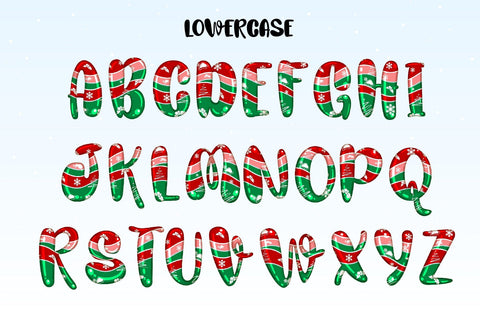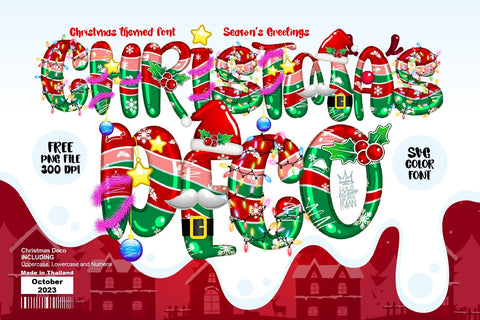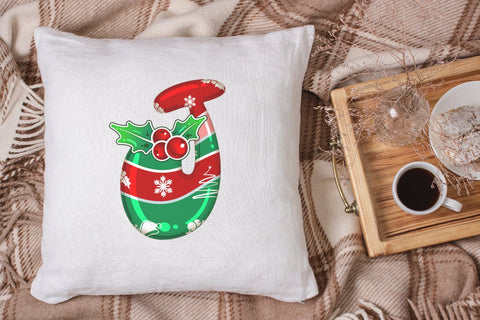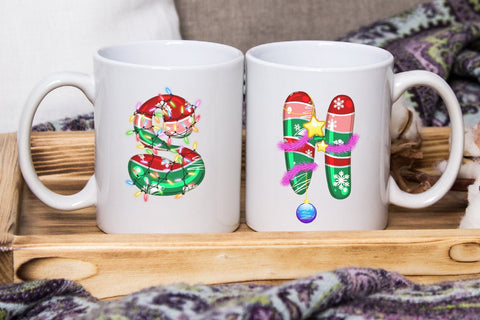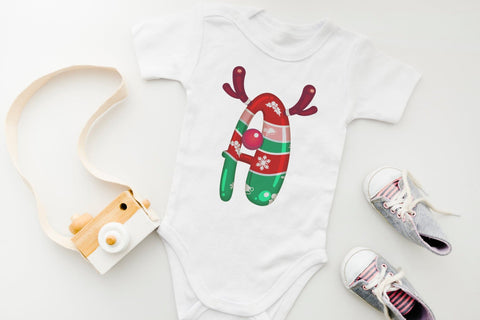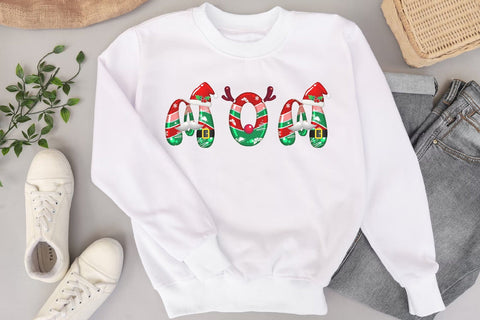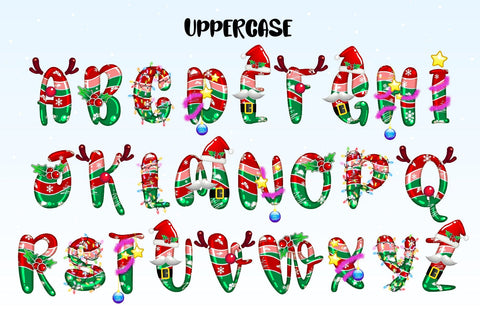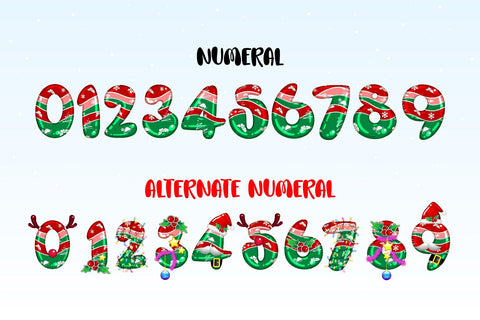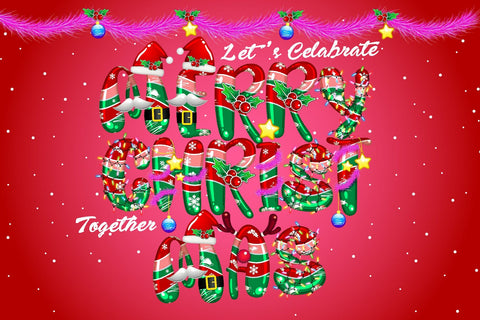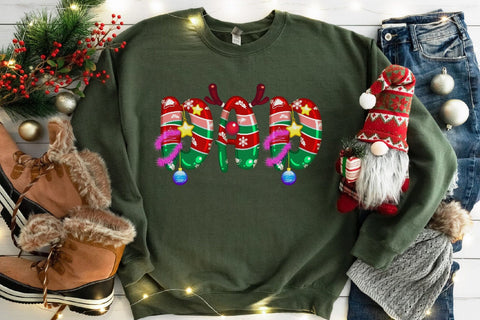
Christmas Deco
Christmas Deco is an adorable and festive color font. It will look fantastic on all your Christmas-themed designs, shirts, crafts, and cards and will instantly enhance your projects!